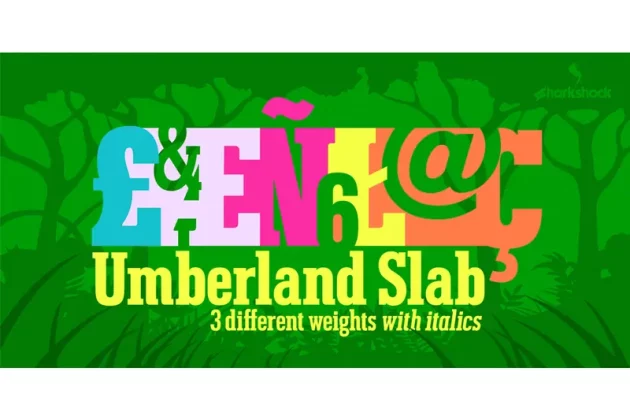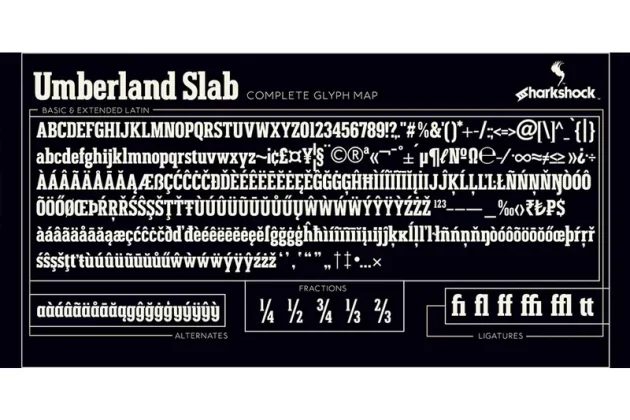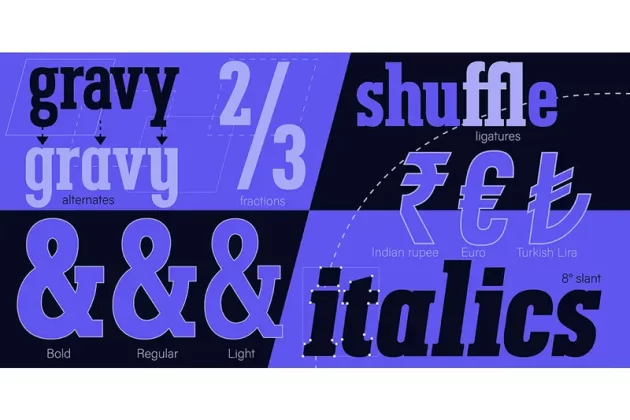
About Umberland Slab Font
Umberland Slab is an attractive family available in 3 different weights with italics. There’s a particular emphasis on simple geometric shapes and the way they interact with tall vertical strokes. Smooth curves and sharp angles blend together in a pleasing symmetry. Stroke widths are given variable degrees of contrast but serifs are consistent and heavy handed. Spacing is on the tight side with some lowercase pairs quite snug against each other. Umberland Slab would work well in small blocks of text, corporate logos, menus, or signage. This family is equipped with European accents/diacritics for international support, fractions, alternates, and ligatures.